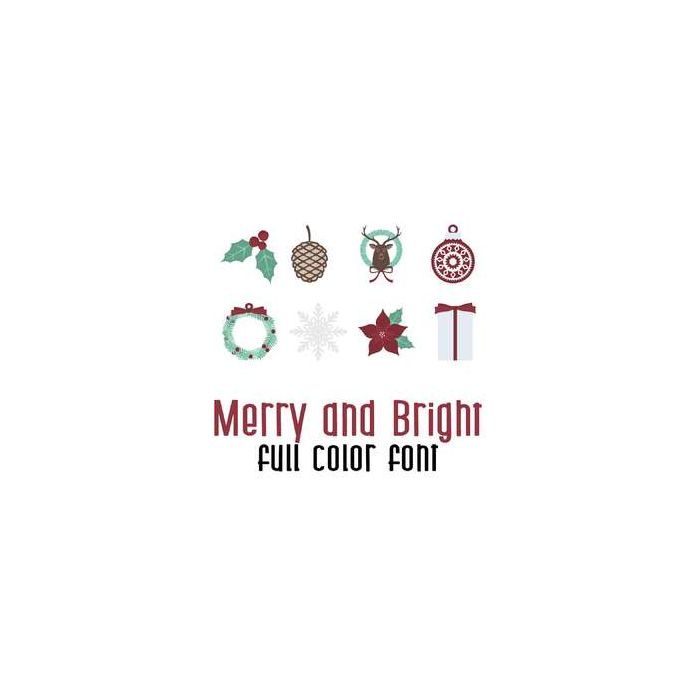
This beautiful full color doodlebat font features gorgeous Christmas and winter imagery. Perfect for cards, crafts, gifts, decor, scrap book pages, planner stickers and more!